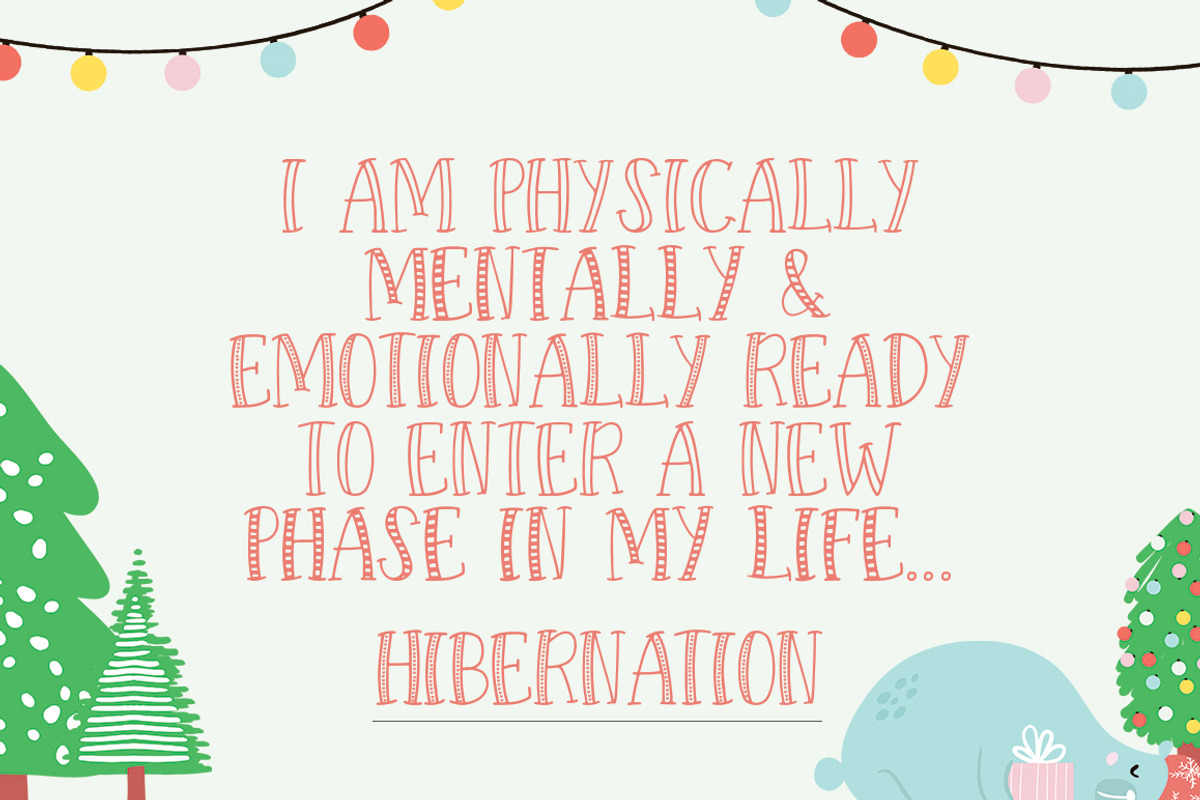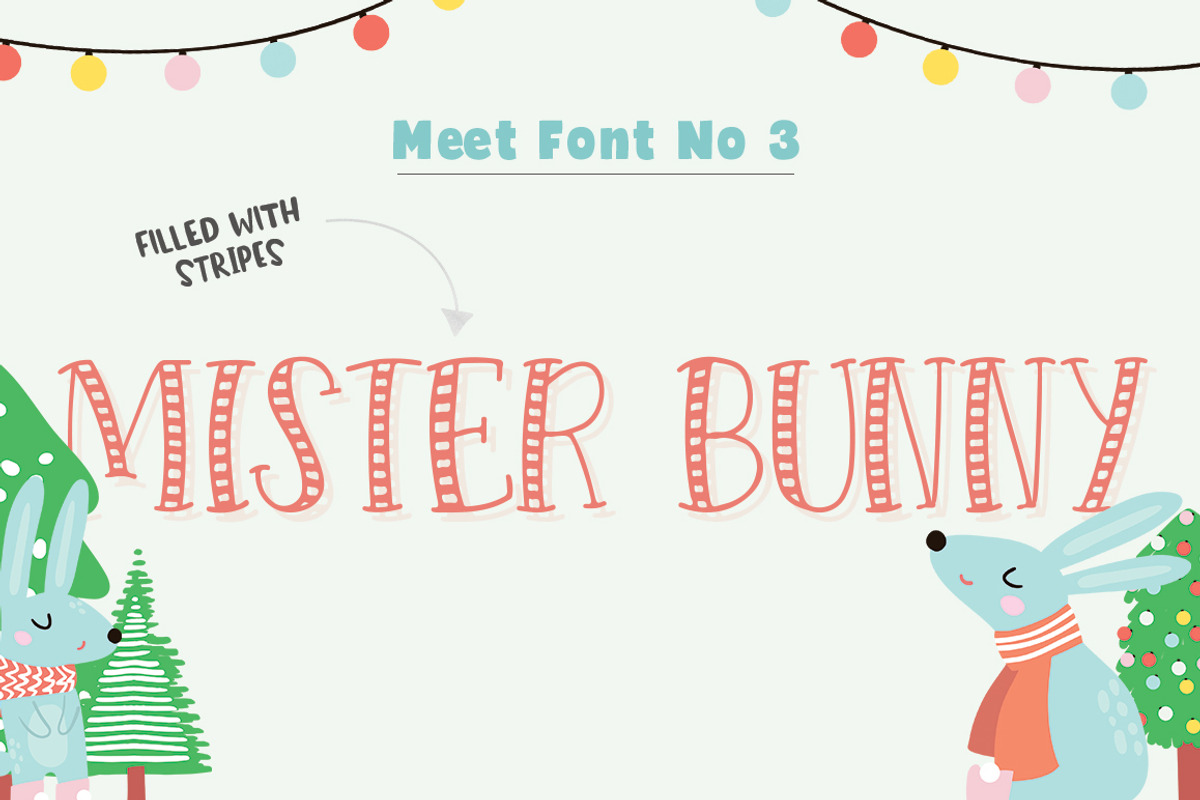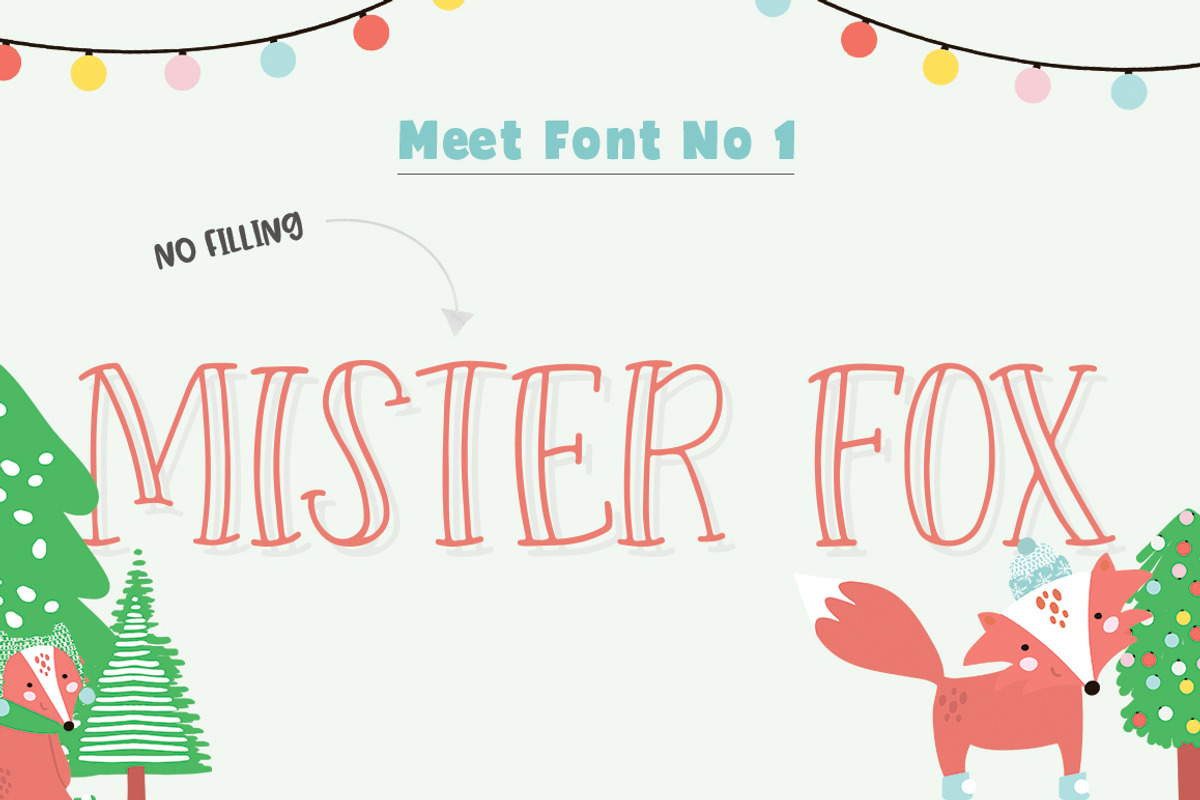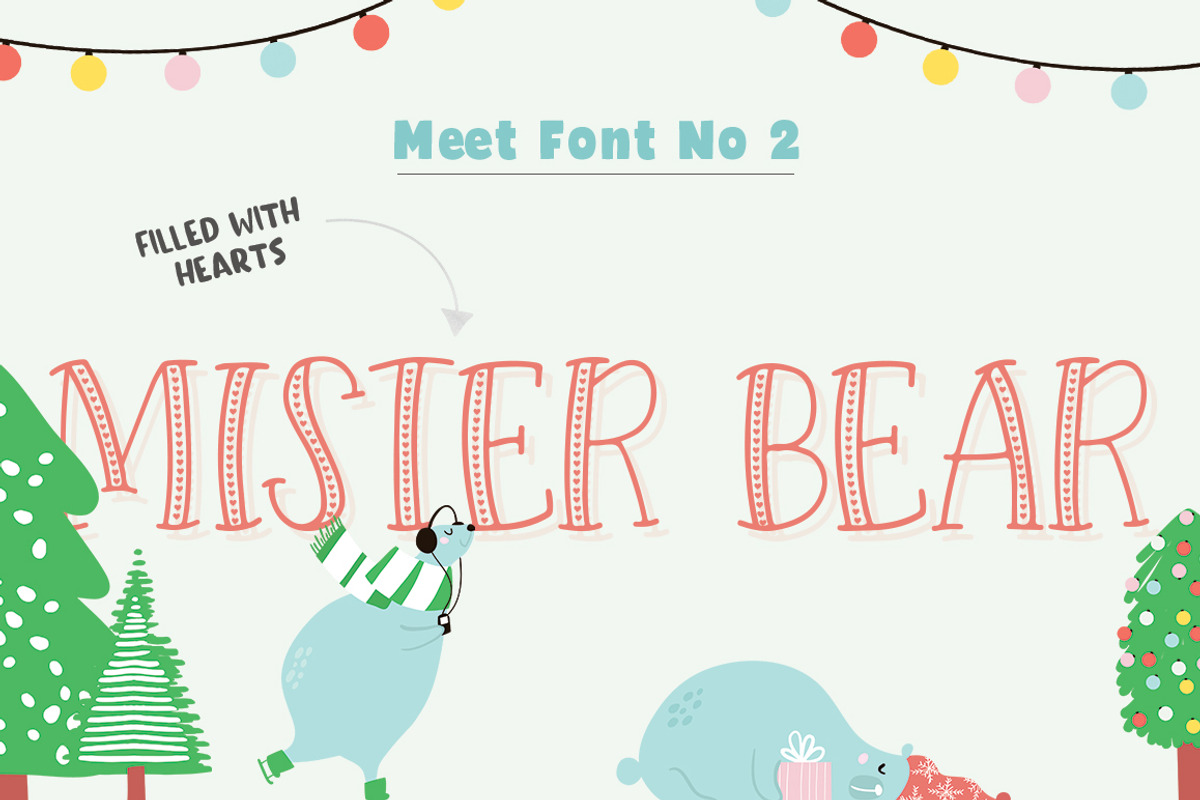
Forest Creatures Font Trio
Forest Creatures is a fabulous new font trio from Salt and Pepper Designs. Featuring Mister Bunny, Mister Fox and Mister Bear.. three best friends who love nothing more than working together to make your designs look desirable. Have fun and let them play!
Forest Creatures Font Trio by Salt & Pepper Designs fits naturally into Branding, posters, packaging, typography.